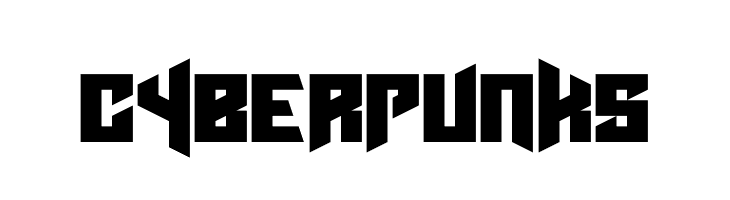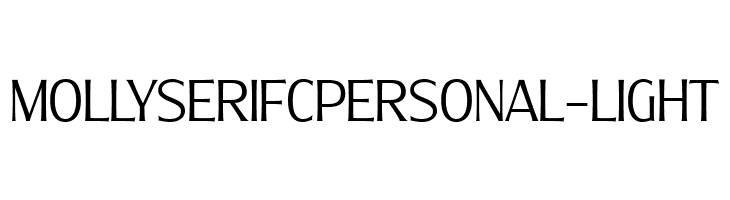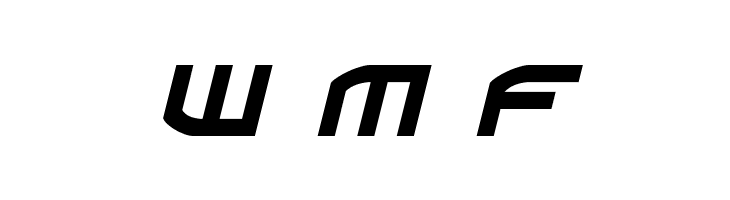
A modern serif font with elegant, slightly condensed characters.
A bold, distressed font with a grunge effect and geometric structure.
A lively and dynamic script font with fluid, connected letterforms.
A pixelated, retro-style font reminiscent of early digital displays.
A whimsical, decorative font with looping, continuous lines and a playful yet elegant style.
A refined serif font with thin, elongated strokes and sharp serifs, offering a sophisticated and modern look.
A bold, decorative font with a gothic, organic design.
A modern, playful font with rounded characters and a structured appearance.
A bold, decorative font with a unique halftone effect and wide, blocky characters.
A bold, geometric font with a futuristic and angular design.